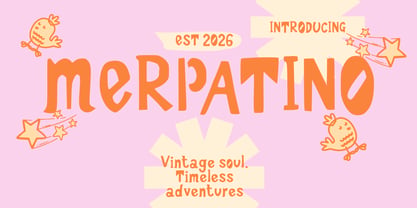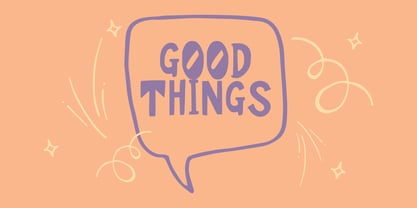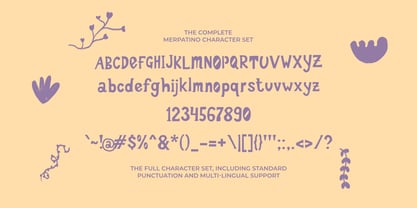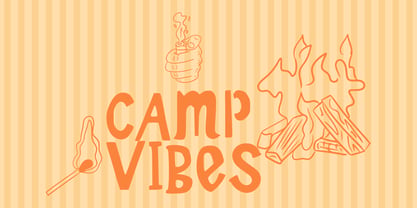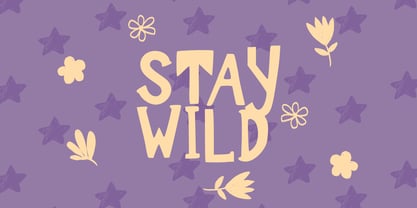
Merpatino
The Merpatino Font Family was designed by Wahyu Eka Prasetya, Mei Suseno and published by Mei Suseno. Merpatino contains 2 styles and family package options. More about this family
Merpatino is a charming vintage display font inspired by nostalgic hand-painted signs, retro packaging, and playful lettering from the golden era of print. Featuring bold, organic letterforms with delightfully irregular curves, this typeface brings warmth, personality, and handcrafted character to every design. Its unique shapes create a fun yet timeless look, making it perfect for branding, logos, packaging, posters, apparel, stickers, social media graphics, children's products, café menus, and creative merchandise. Whether you're designing with a rustic, bohemian, retro, or whimsical aesthetic, Merpatino delivers an authentic handcrafted feel that stands out effortlessly.